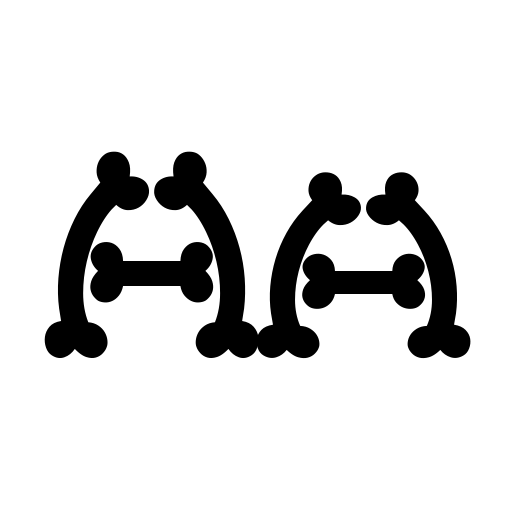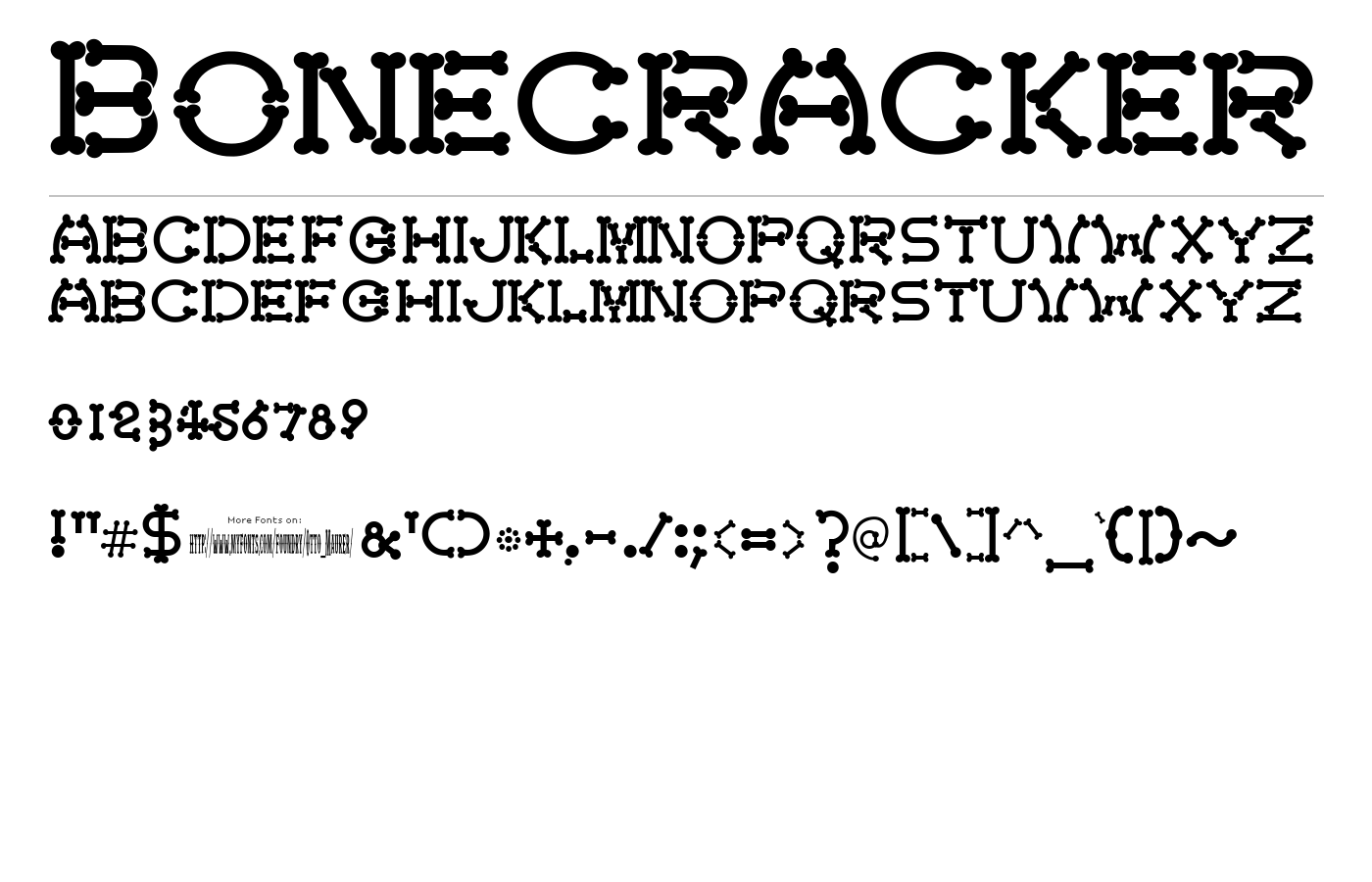
Bonecracker is a decorative, playful display font featuring bold, rounded letterforms connected by small bone-like shapes, giving it a quirky and slightly spooky character. Its unique design makes it perfect for Halloween-themed projects, children’s party invitations, or any creative work seeking a fun, eye-catching style that blends whimsy with a touch of eerie charm.
Bonecracker Font
About Bonecracker Font